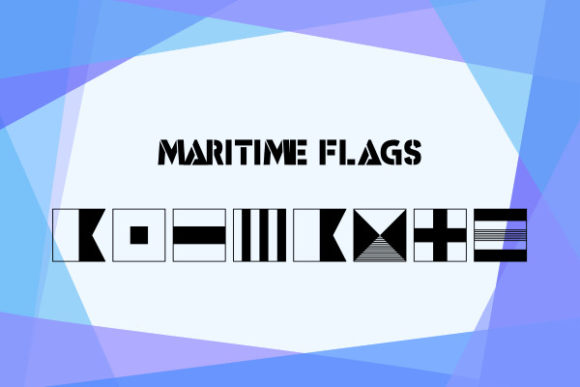
Introduction to Maritime Flags Font
Maritime Flags is a nice that replaces letters with flags based on their use case on the high seas.
Its purpose is to enhance your product with its beautiful little flags Created by Vic Fieger.
Key Features of Maritime Flags Font
Why Choose Maritime Flags Font?
Maritime Flags Font offers exceptional quality and versatility, making it a valuable addition to your design toolkit. Whether you’re creating for personal projects or commercial use, Maritime Flags Font delivers professional results.